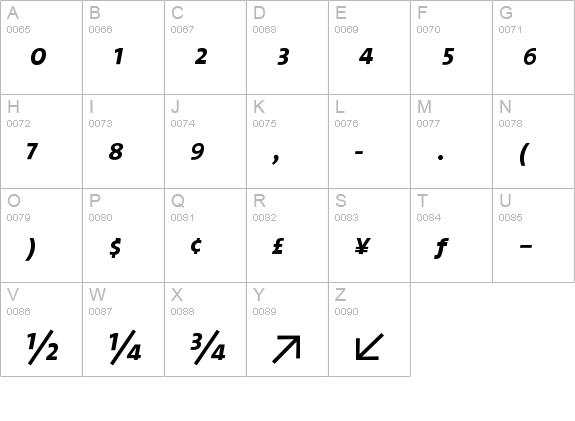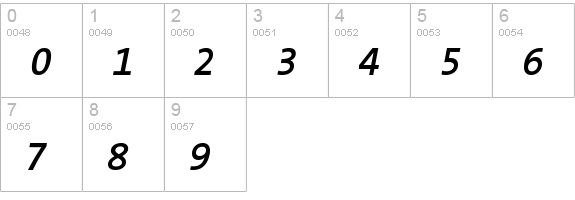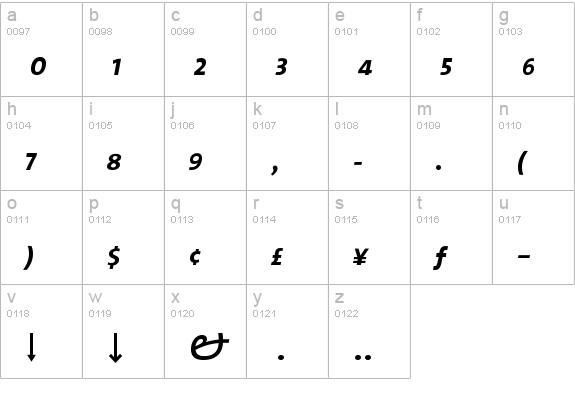
TheMix SemiBold Expert Italic Font Details
TheMix SemiBold Expert Italic is a sub-bold, structured, italic variant in the TheMix typeface family \xE2\x80\x94 well suited to sub-headlines and emphasised passages.
TheMix SemiBold Expert Italic font is a dynamic and versatile typeface that exudes confidence and sophistication. With its semi-bold weight and expertly crafted italic style, this font effortlessly combines elegance with a touch of boldness, making it the perfect choice for a wide range of design projects. Designed to captivate and engage, TheMix SemiBold Expert Italic font offers a harmonious balance between legibility and visual appeal. Its carefully constructed letterforms possess a sense of refined artistry, ensuring that every word or phrase set in this font leaves a lasting impression. Whether used for editorial design, branding, or advertising campaigns, TheMix SemiBold Expert Italic font adds a touch of modernity and professionalism to any project. Its sleek and stylish appearance enhances readability, making it suitable for both print and digital media. One of the most remarkable features of TheMix SemiBold Expert Italic font is its versatility. It effortlessly adapts to various design contexts, from headlines to body text, and everything in between. Its expertly designed italic style adds a hint of flair and uniqueness, setting it apart from other fonts. What sets TheMix SemiBold Expert Italic font apart from others is that it is freely available to download at FontsMarket.com. This means that designers and creatives can access this remarkable font without any hindrance. The opportunity to use such a high-quality font free of charge is a testament to the accessibility and inclusivity of the design community. Overall, TheMix SemiBold Expert Italic font is a stunning typeface that combines elegance, modernity, and versatility. Its freely available download at FontsMarket.com makes it an invaluable resource for designers looking to elevate their projects with a touch of sophistication and professionalism.